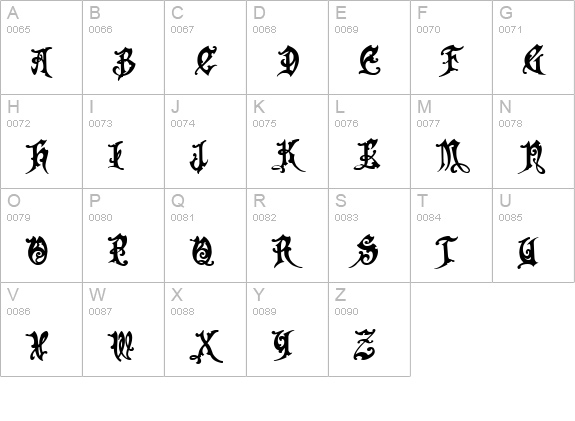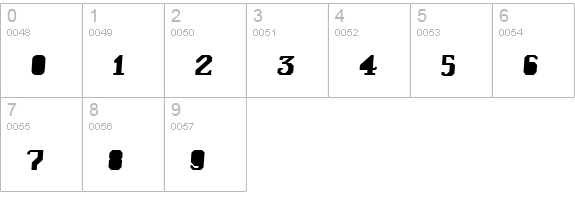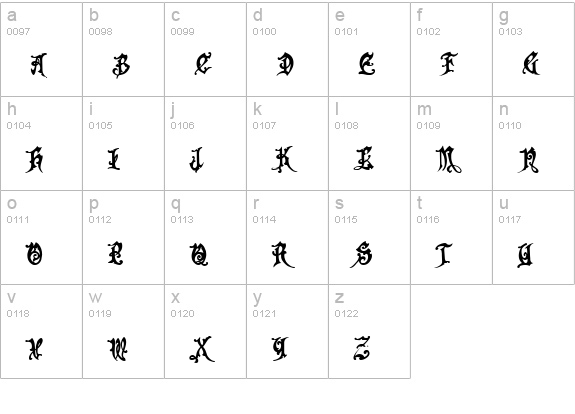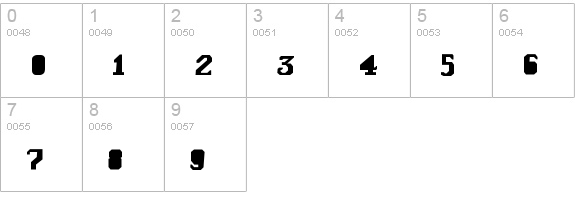
FrightWrite1 Medium Font Details
FrightWrite1 Medium is a balanced, medium-weight variant in the FrightWrite1 typeface family \xE2\x80\x94 well suited to sub-headlines, navigation, and balanced editorial work.
FrightWrite1 Medium font is a hauntingly captivating typeface that will send shivers down your spine with its bold and mysterious appearance. Its unique design exudes an air of suspense and intrigue, making it the perfect choice for creating chilling headlines, eerie posters, or spooky invitations. This font strikes the perfect balance between being both impactful and readable, making it versatile for a wide range of design projects. Whether you're working on a Halloween-themed project or simply want to add a touch of the macabre to your designs, FrightWrite1 Medium font is sure to make a lasting impression. Best of all, FrightWrite1 Medium font is available for free download at FontsMarket.com. So why wait? Bring your designs to life with this spine-tingling font today!